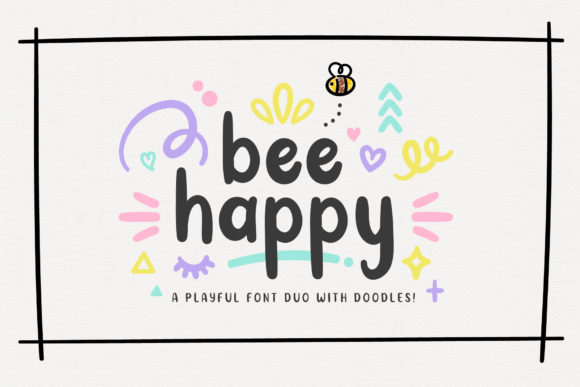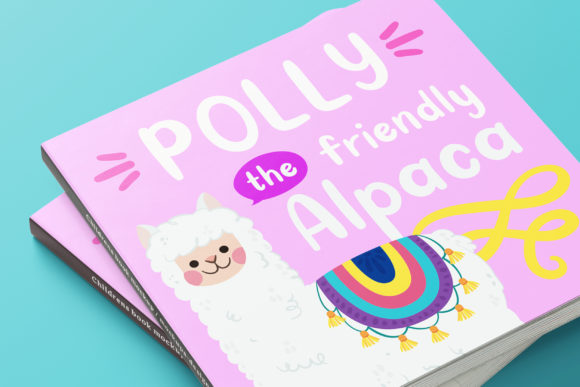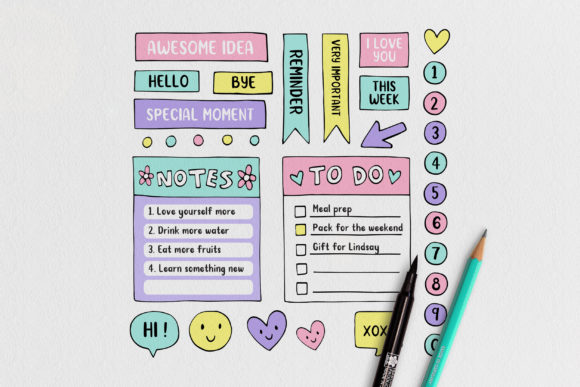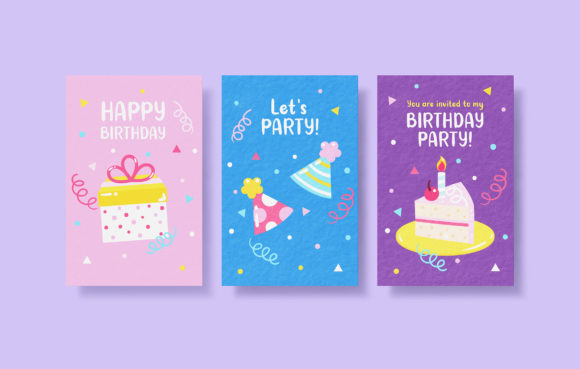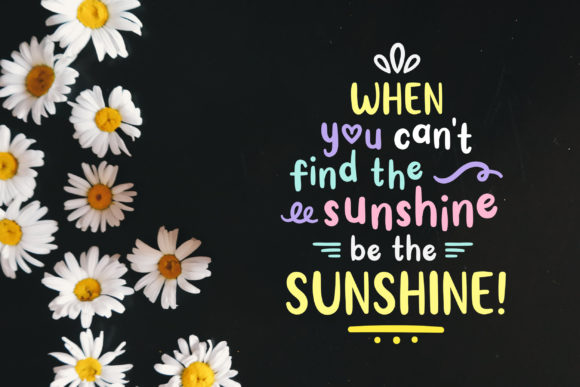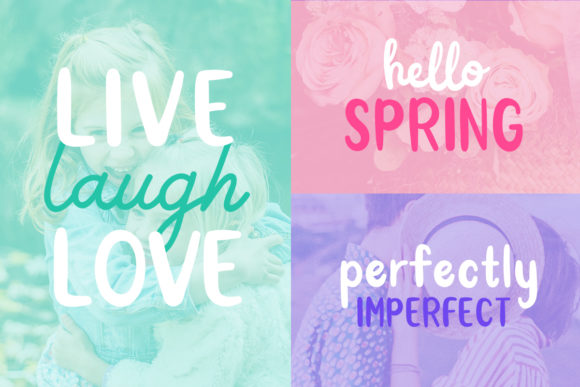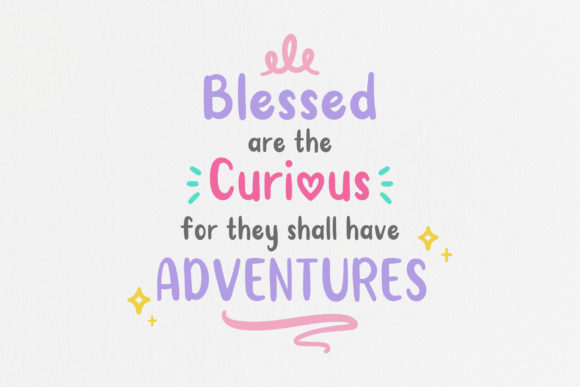
Bee Happy Duo Font
About Bee Happy Duo Font
The Bee Happy is a playful font duo. It comes in a regular and doodle version which you can use to create some fun typography designs.
It’s perfect for quotes, home decor, party invites, blog header, t-shirts, posters & absolutely any other design & craft project!